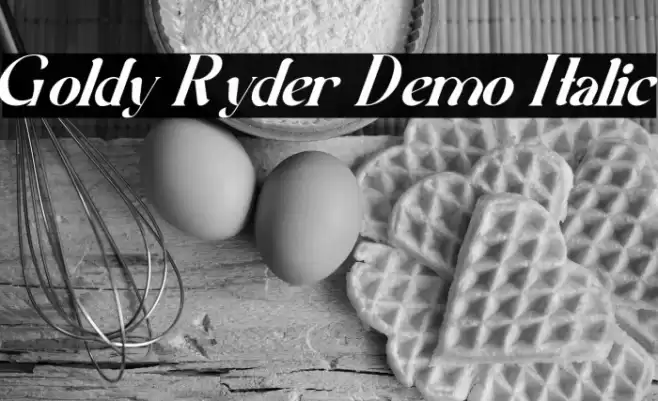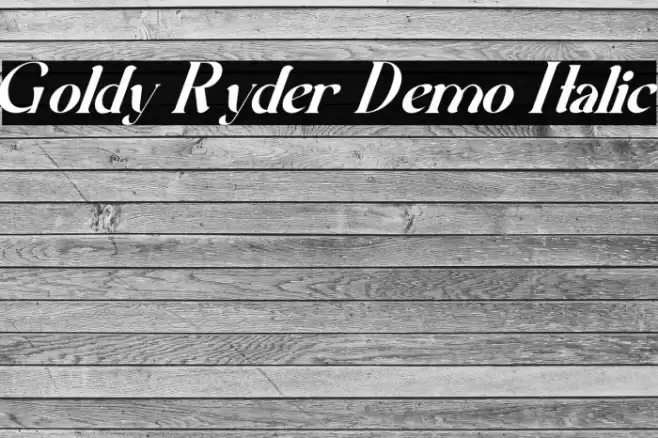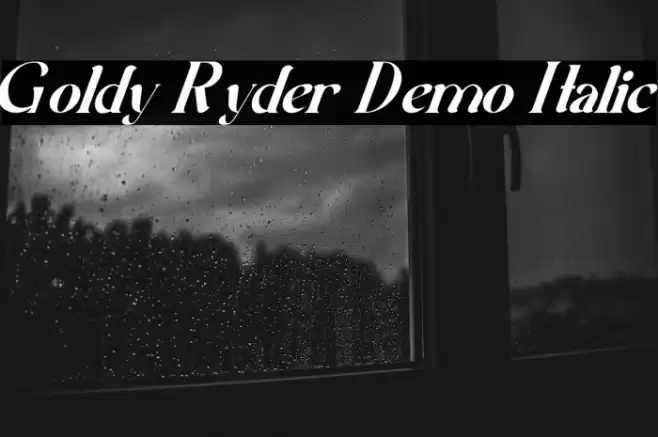
Goldy Ryder Demo Italic Font
Goldy Ryder Demo Italic Description
This elegant and sophisticated font features a distinct italic style with a high contrast between thick and thin strokes. The characters are slightly condensed, giving it a refined and modern appearance. The uppercase letters are tall and commanding, while the lowercase letters maintain a smooth and flowing form. The font's design is both stylish and versatile, making it suitable for a variety of applications. The special characters are crafted with the same attention to detail, ensuring consistency throughout the typeface. Its overall aesthetic is both classic and contemporary, making it a great choice for projects that require a touch of elegance.
An elegant italic font with high contrast and a modern, sophisticated style from Uncategorized fonts.
- Proposed Projects: Ideal for luxury branding, wedding invitations, editorial design, and high-end product packaging.
- Use Case: Logos, Headlines, Editorial design